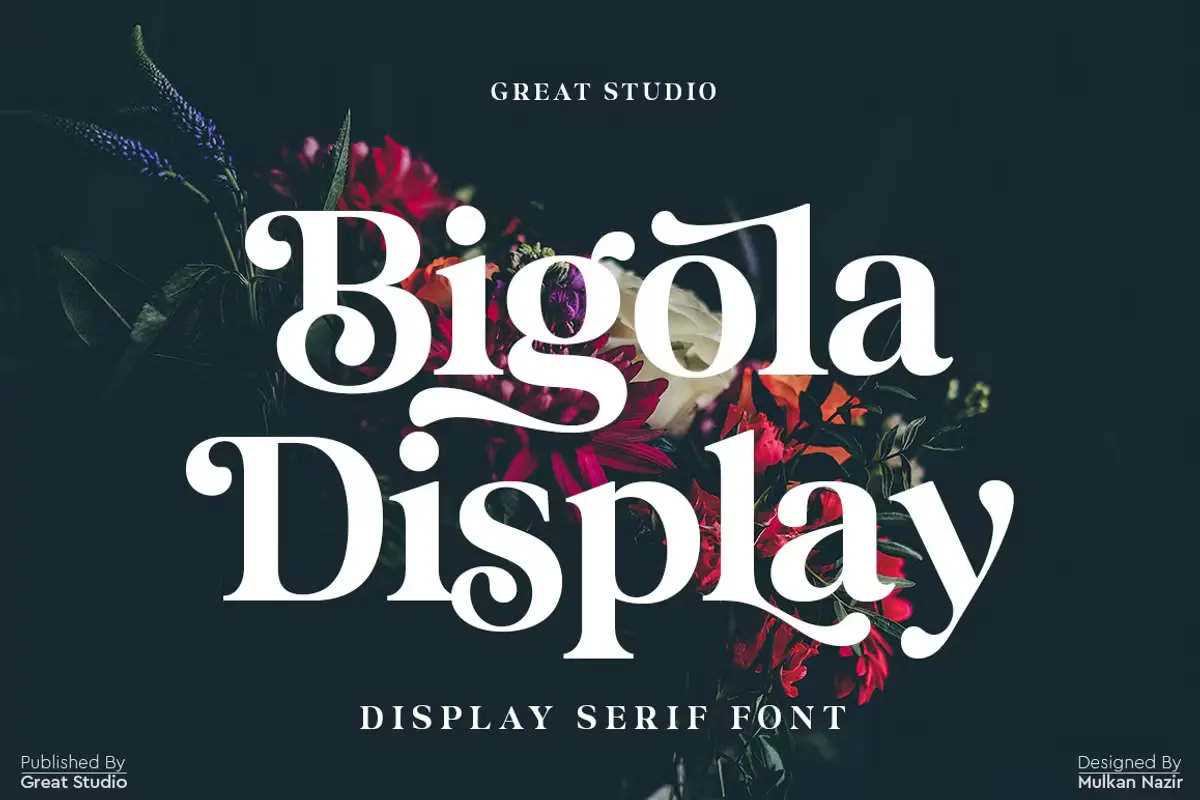
Bigola Display font features modern and vintage aesthetics, which delivers an elegant style to transform any project into a classier presentation. Bigola Display functions beyond typical typeface because its carefully detailed design combined with its elegant serif style creates a statement through typographic execution.
It distinguishes itself by presenting designers with an extensive set of OpenType features which enable them to use alternate letters and ligatures. The huge 170 alternative characters and 14 distinct ligatures allow this font to deliver infinite opportunities for creators. The capability to test different combinations involving uppercase and lowercase letters lets users create a sophisticated design through Bigola Display.
The font elevates all applications with timeless elegance through its utilization in branding projects and logo designs, as well as packaging magazine headlines and advertising. With its versatile range, Bigola Display font works perfectly in branding clothes while reflecting through T-shirts and serving many other applications.